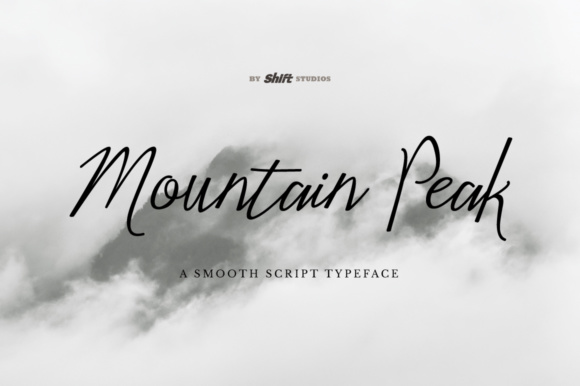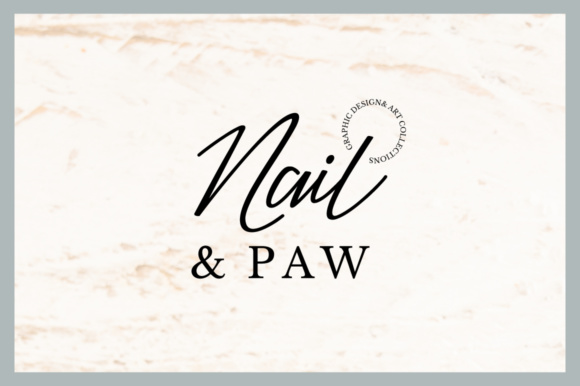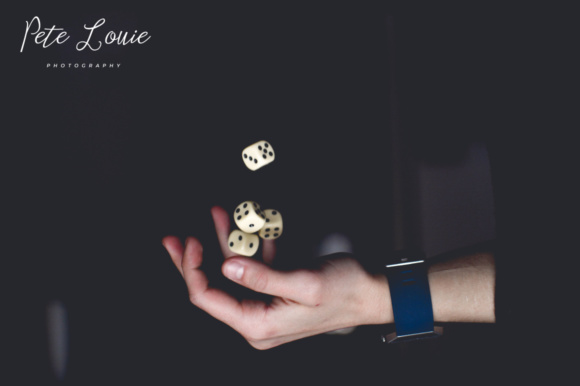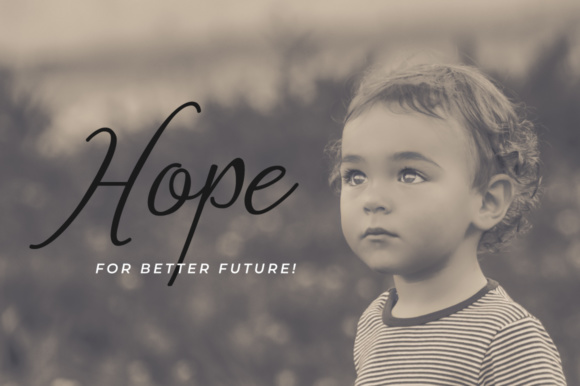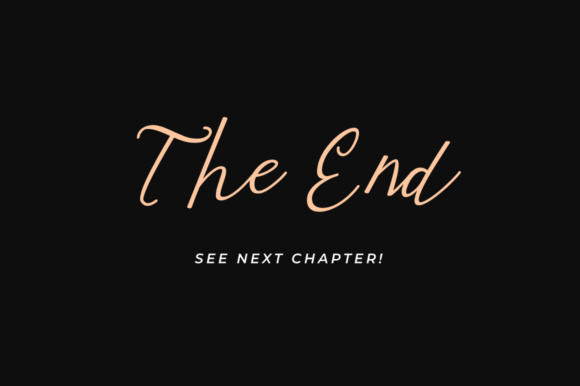
Mountain Peak Font
About Mountain Peak Font
Mountain Peak is a bouncy script and handwriting font which will give your design a beautiful and elegant look.
Perfect for displays, headers, invitations, blogs, poster and much more. Mountain Peak will become a essential font in your collection!